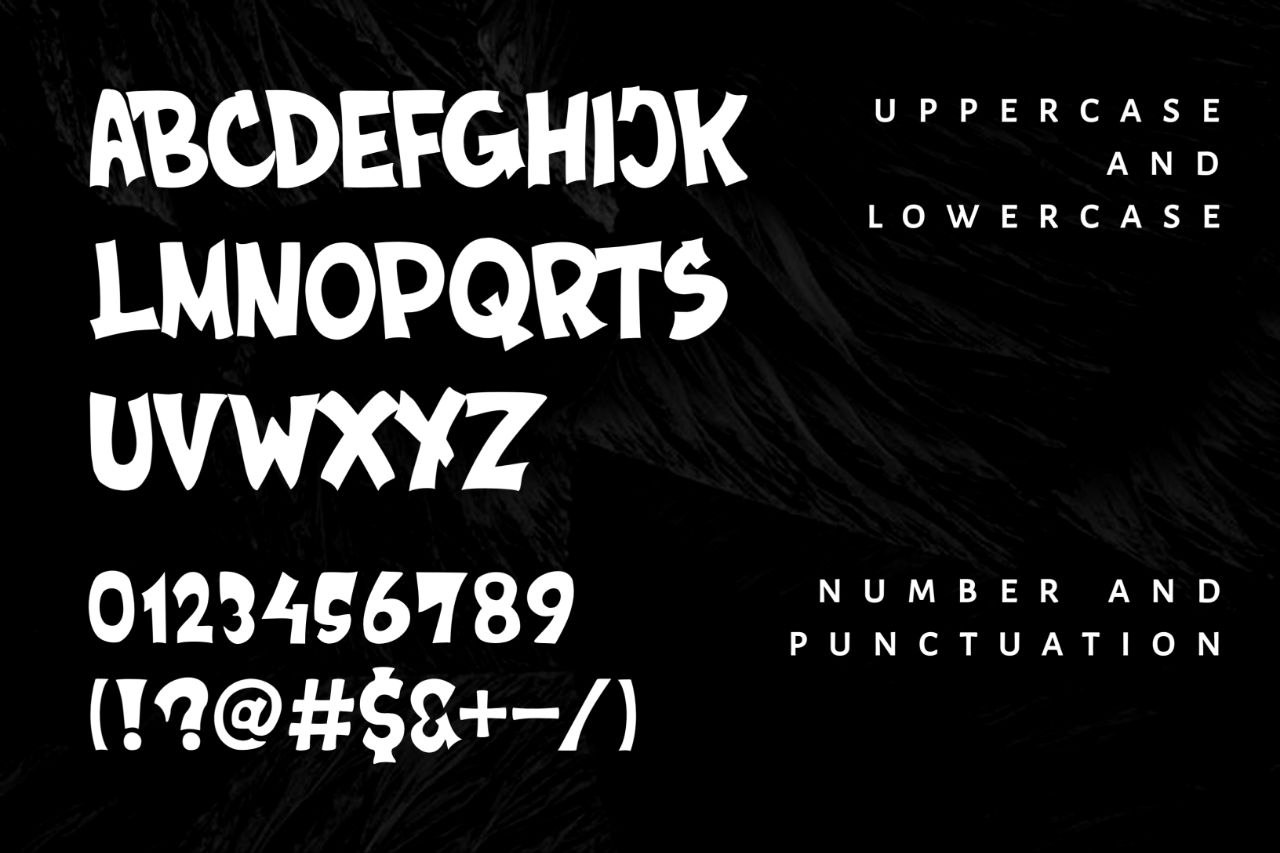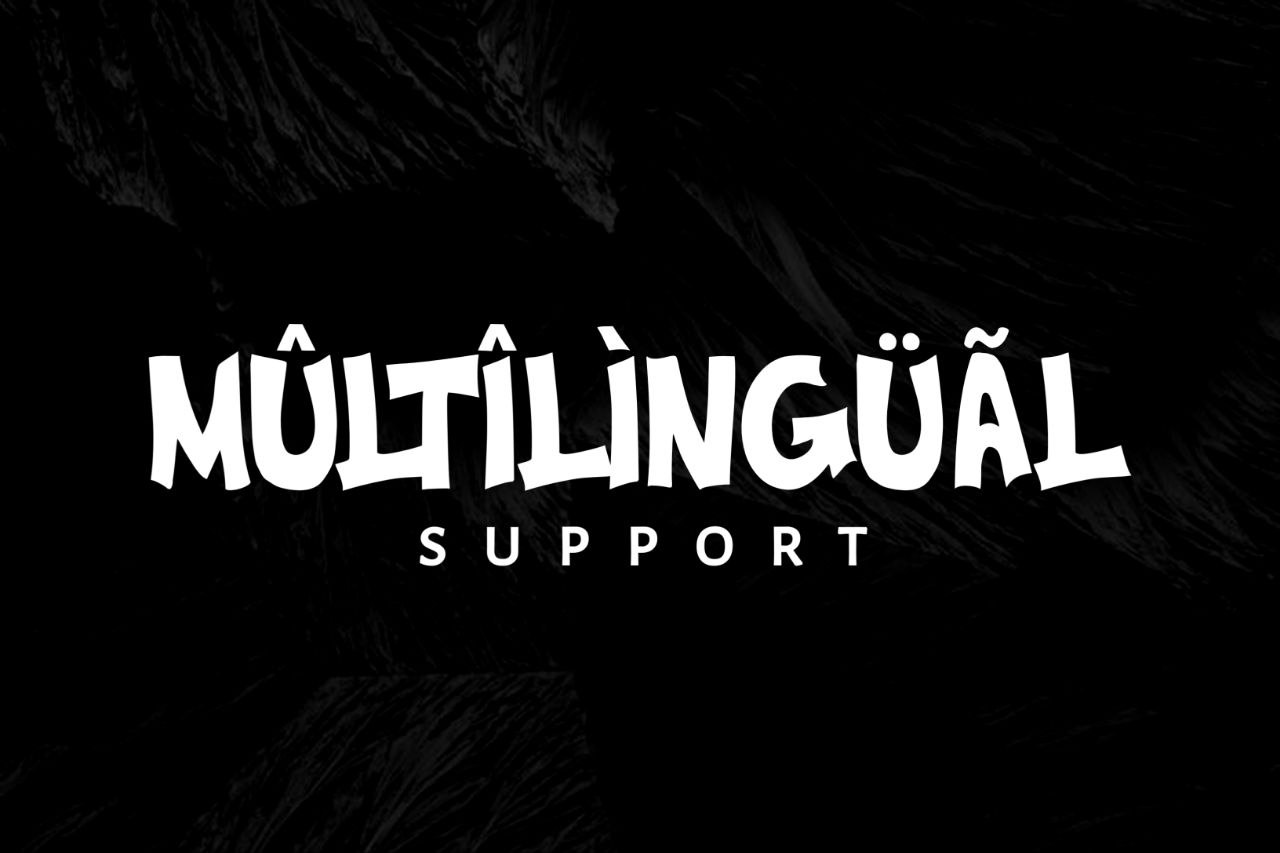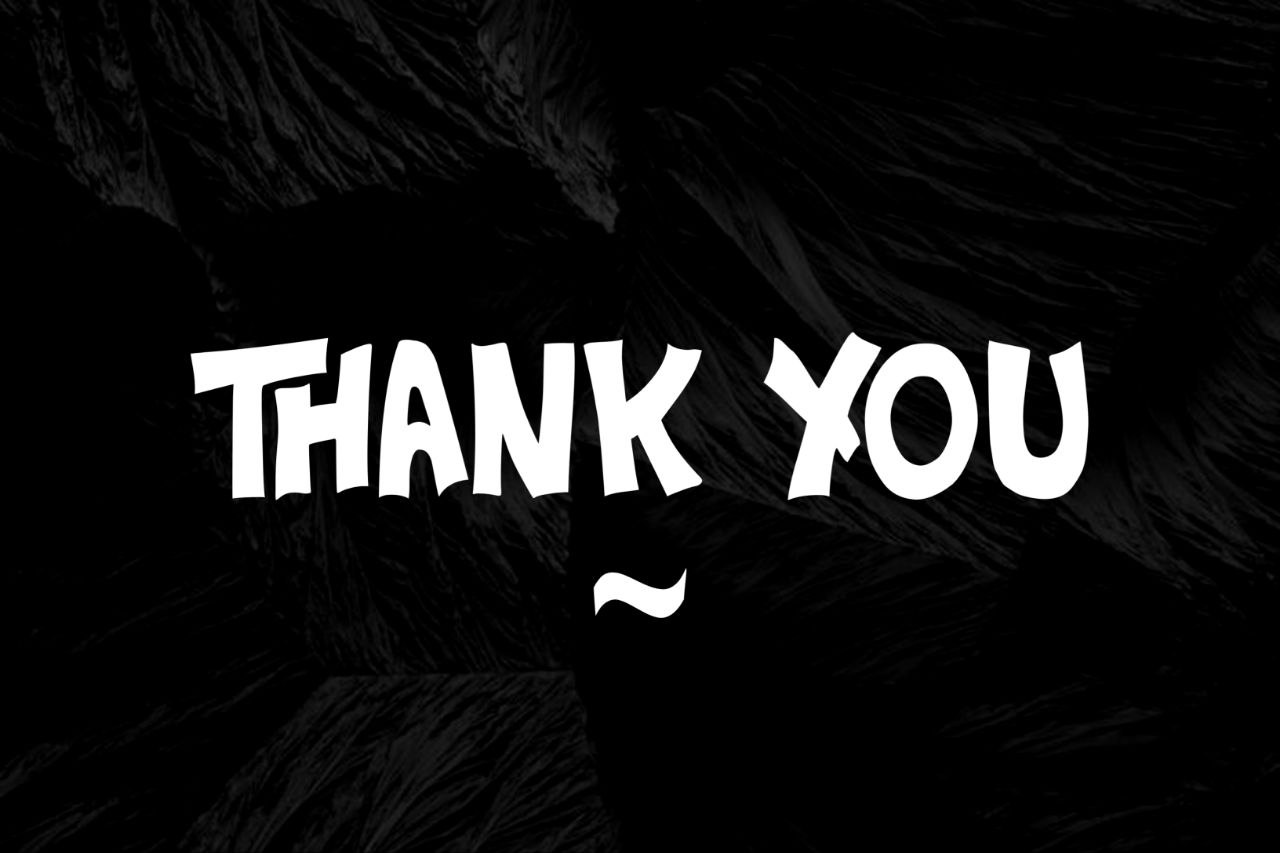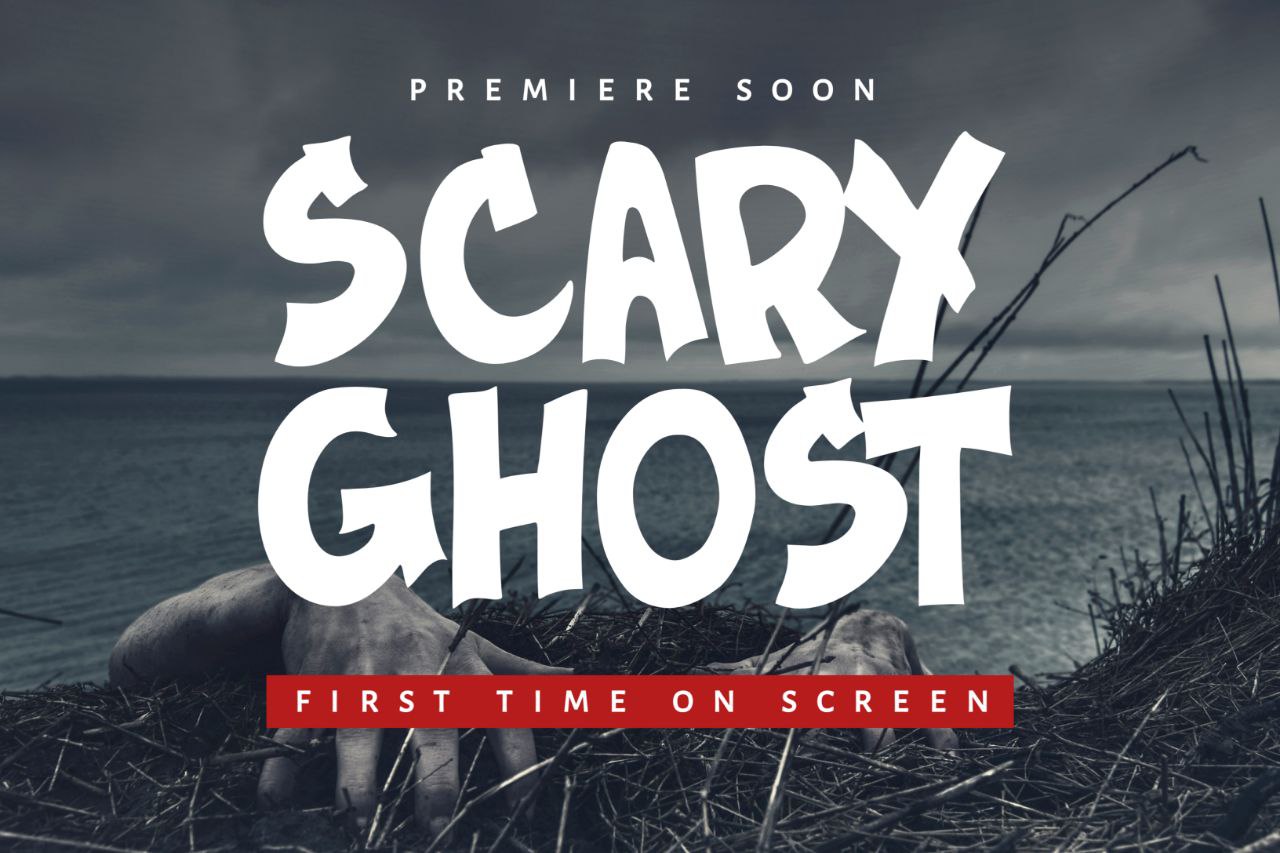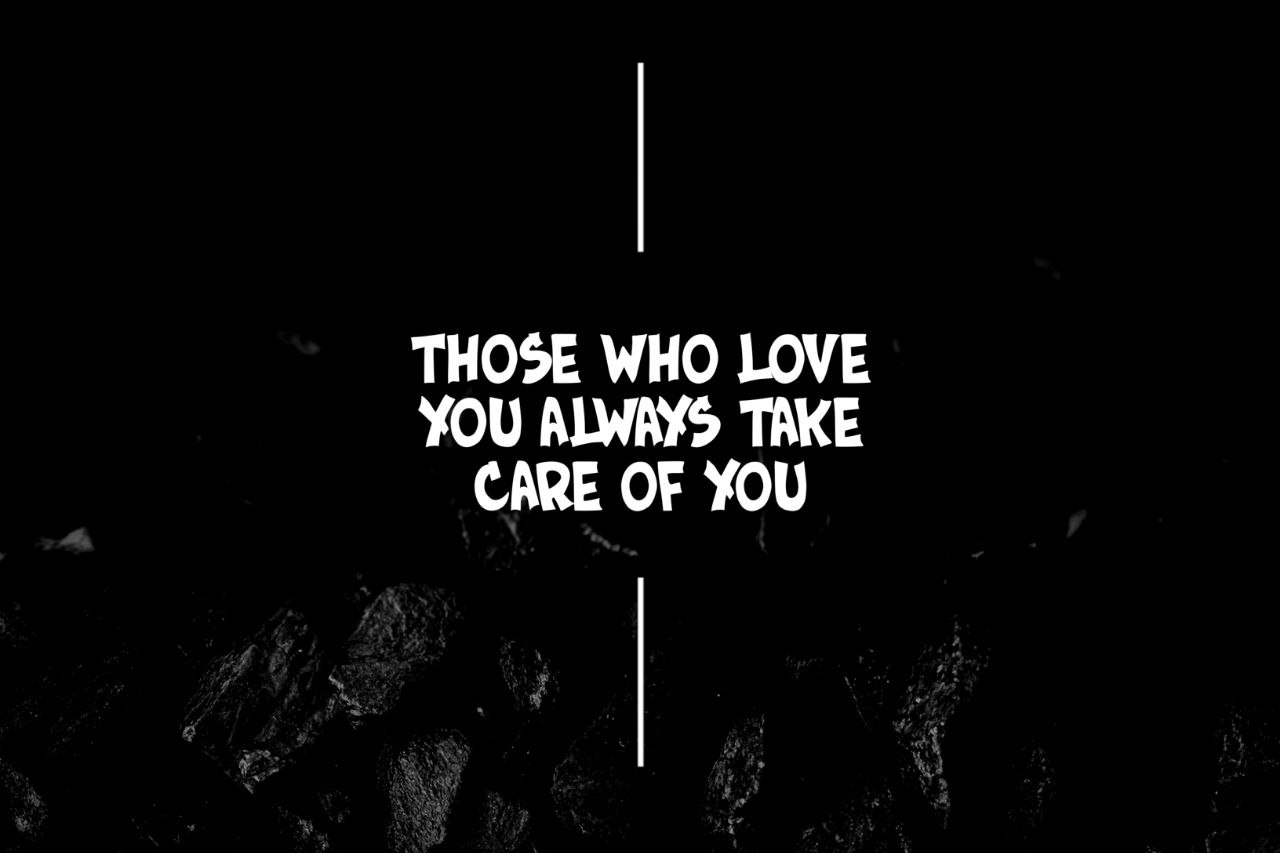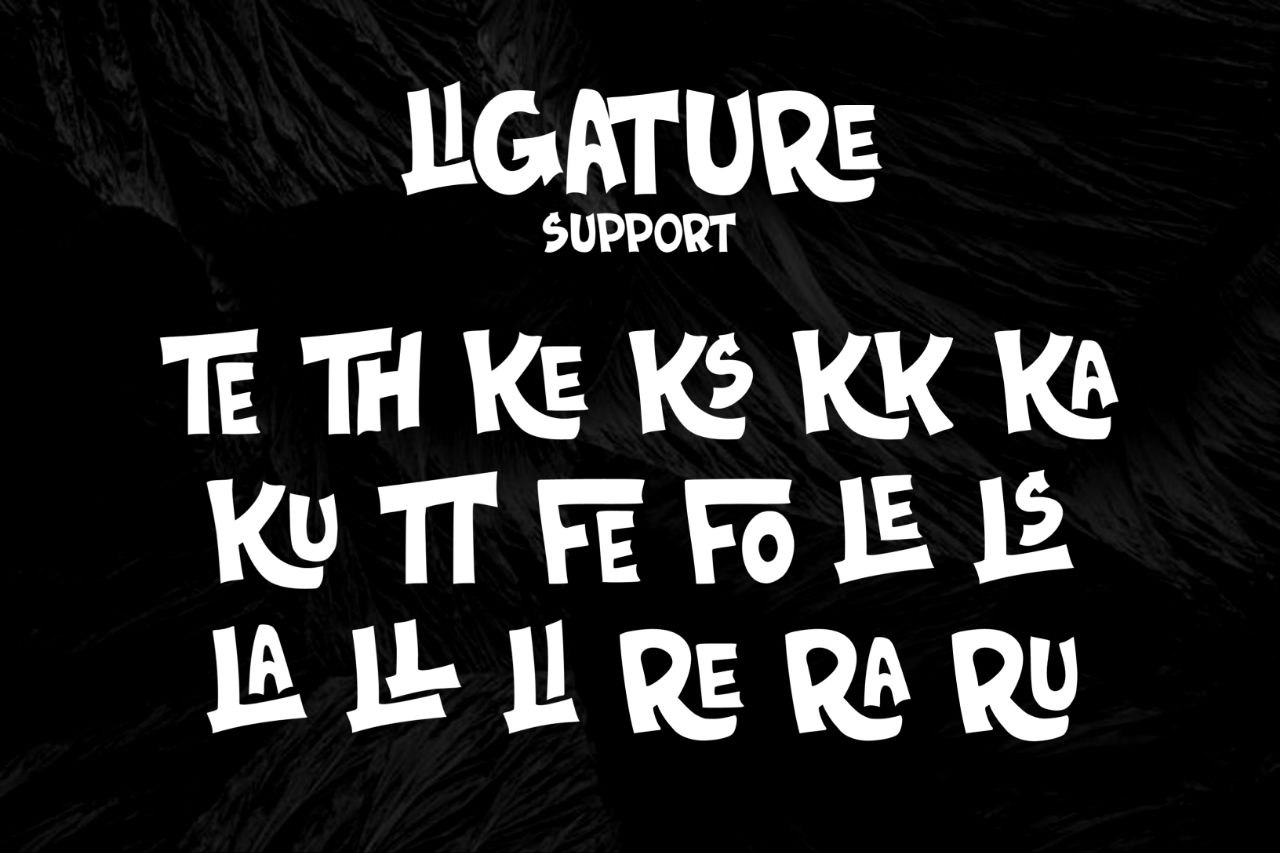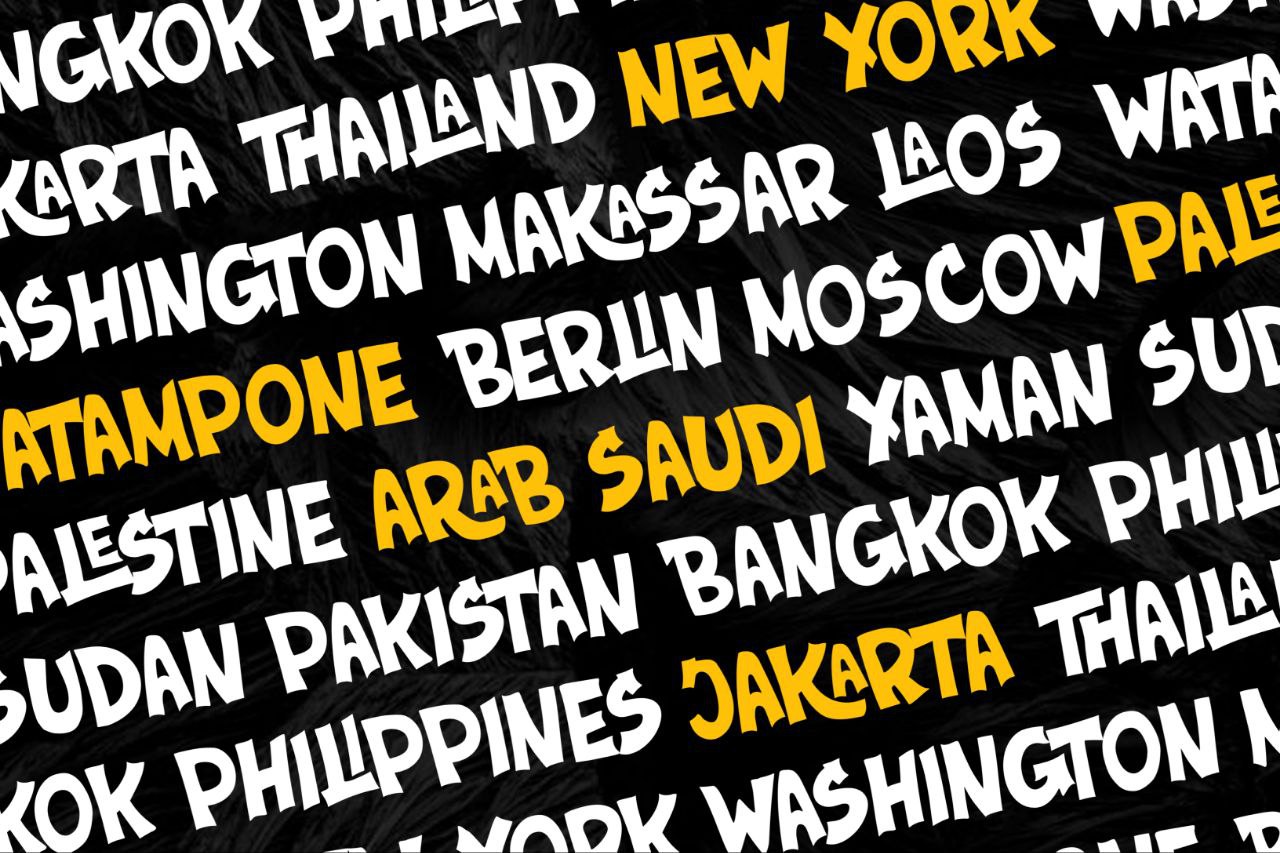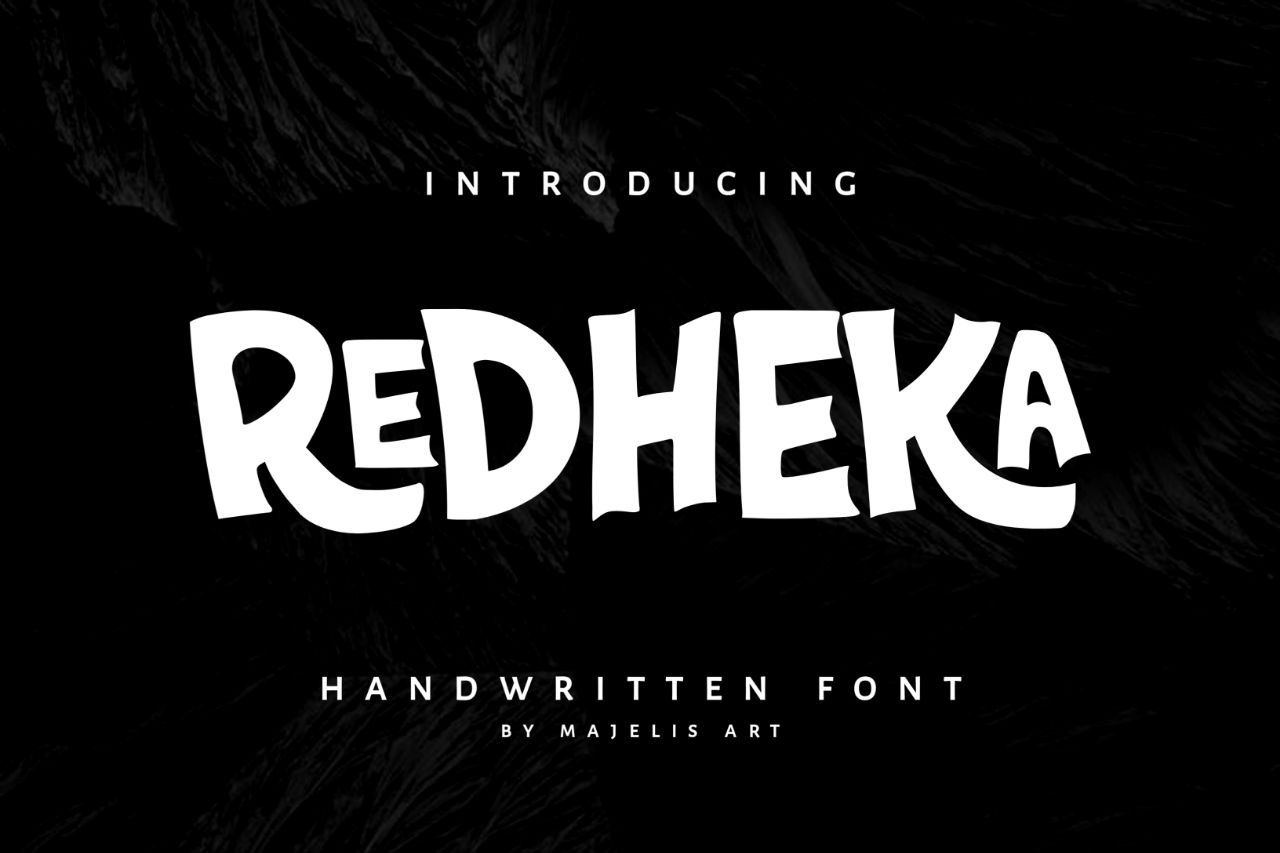
REDHEKA - Handwritten font
REDHEKA is a handwritten font that we write with very thick thickness. REDHEKA has curves that suit design enthusiasts, This font is suitable for use in electronic media, poster design, logos for businesses, and the most suitable of all is use in a horror and scary themed film.
- Uppercase and lowercase
- Number and punctuation
- Some special ligatures